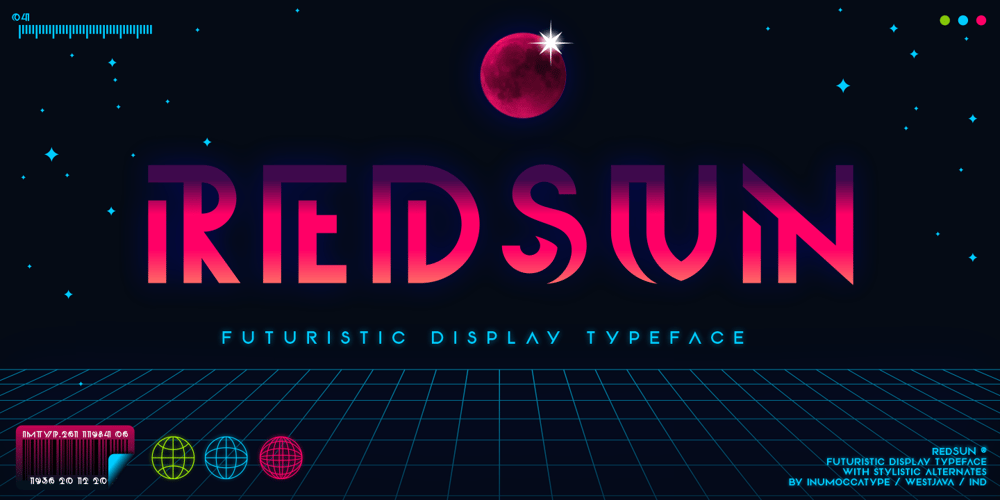
Red Sun Font Family was designed by Inu Mocca and published by Inumocca. Red Sun contains 1 styles and family package options. Red Sun – A futuristic font with simple and strong characters.Inspired by the visuals and colour scheme of neon signs and synthwaves.A really great font for many projects, like game design, websites, magazines, branding, posters, logos, and more.- Unique glyphs- Multilingual support- UPPERCASE- Lowercase- Numeric- Symbol- Punctuation – PUA encoded- Stylistic alternates